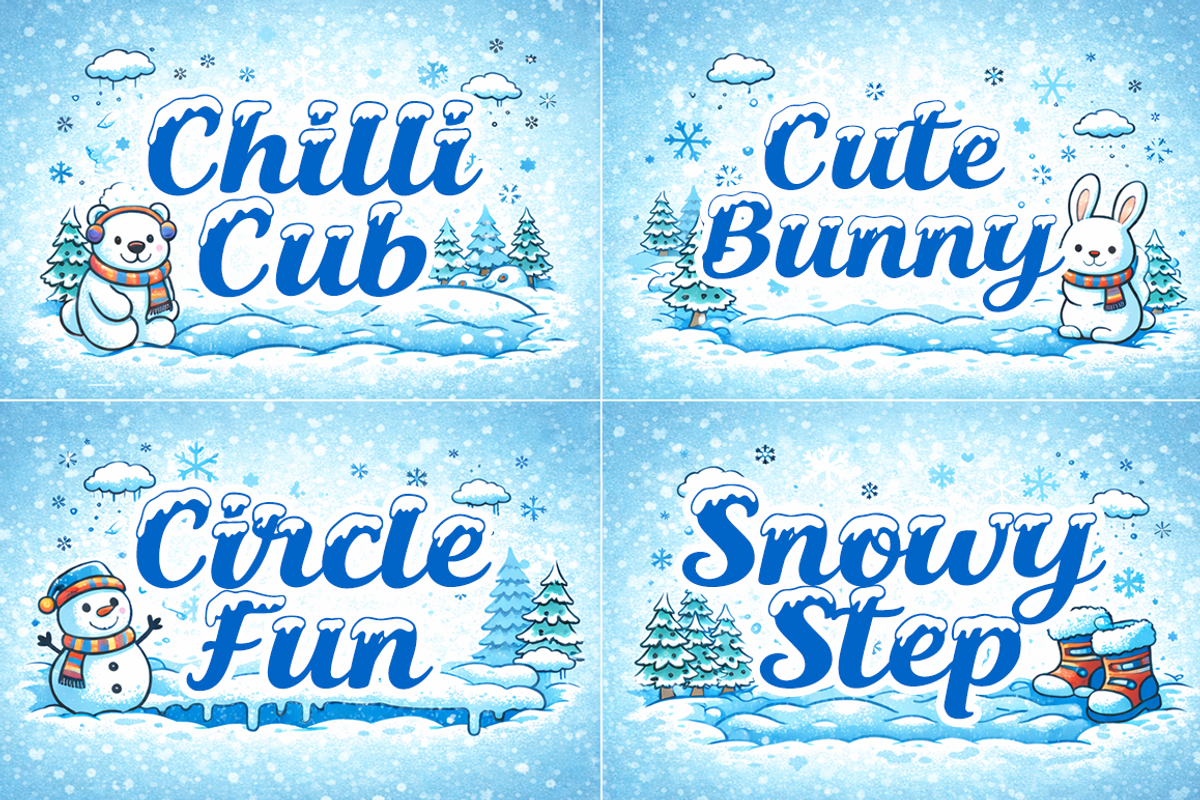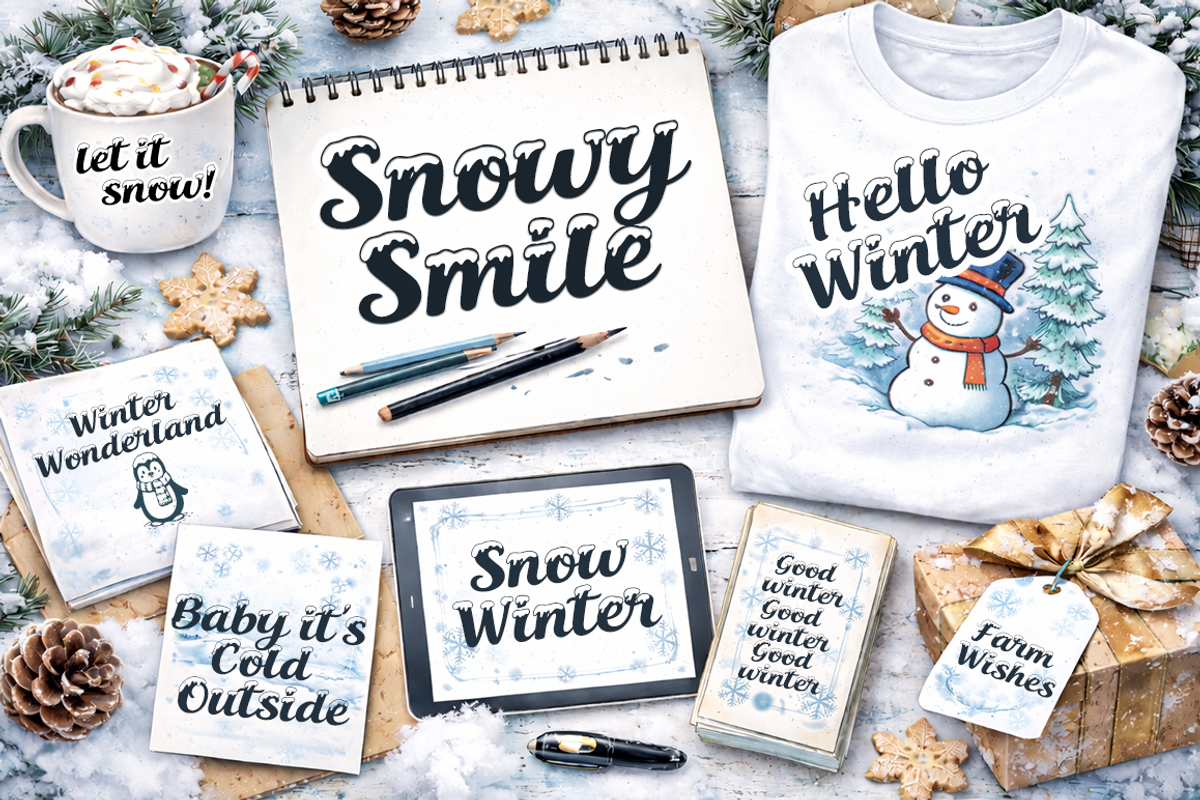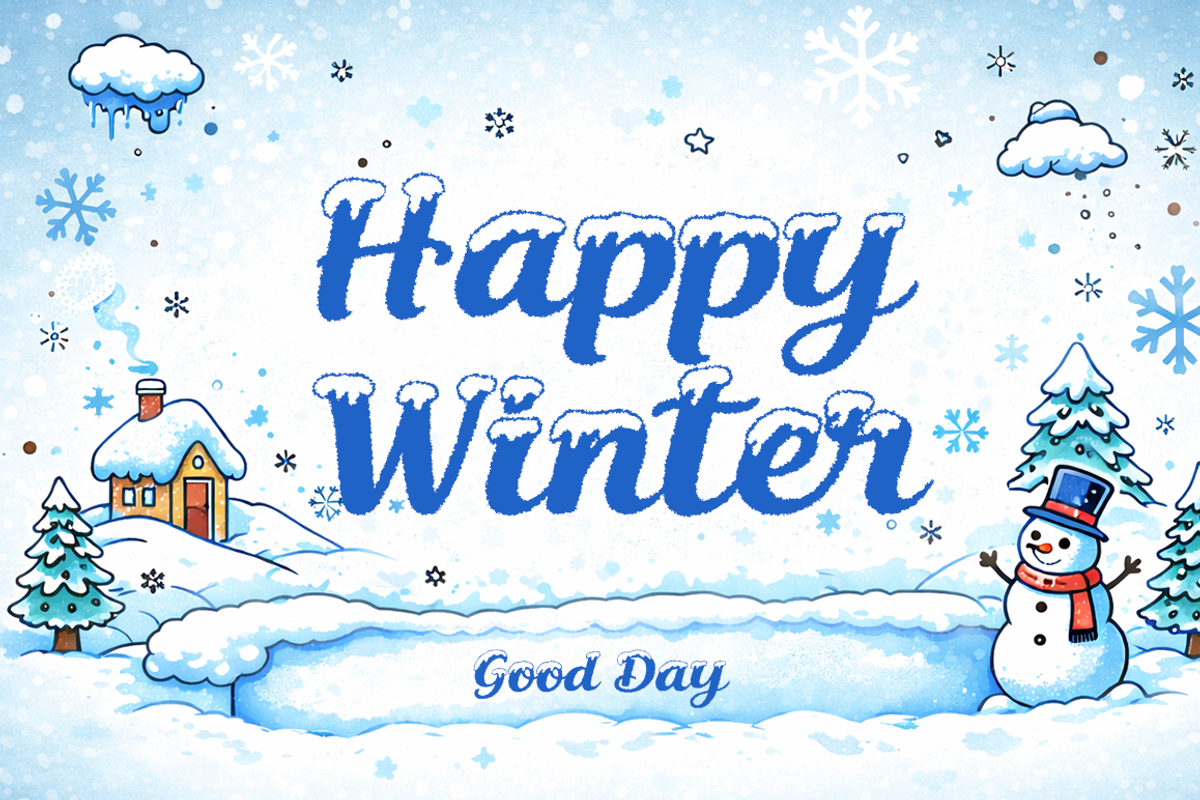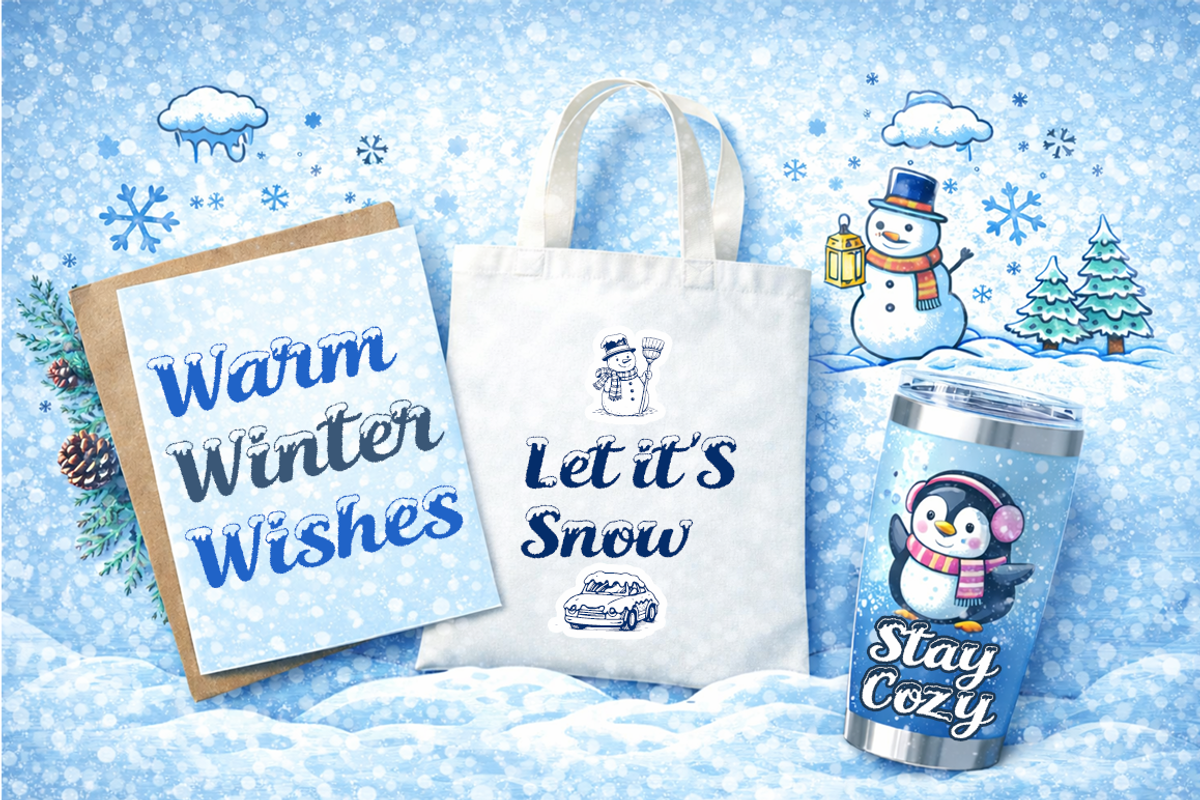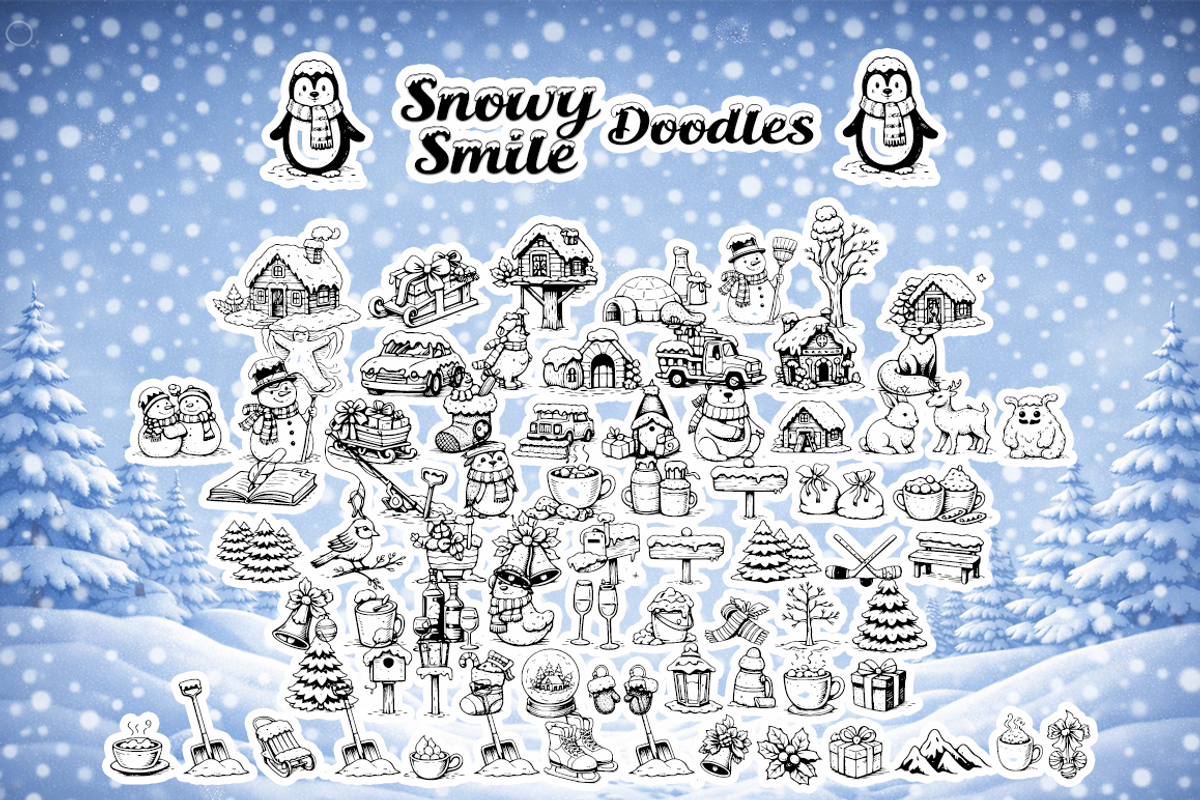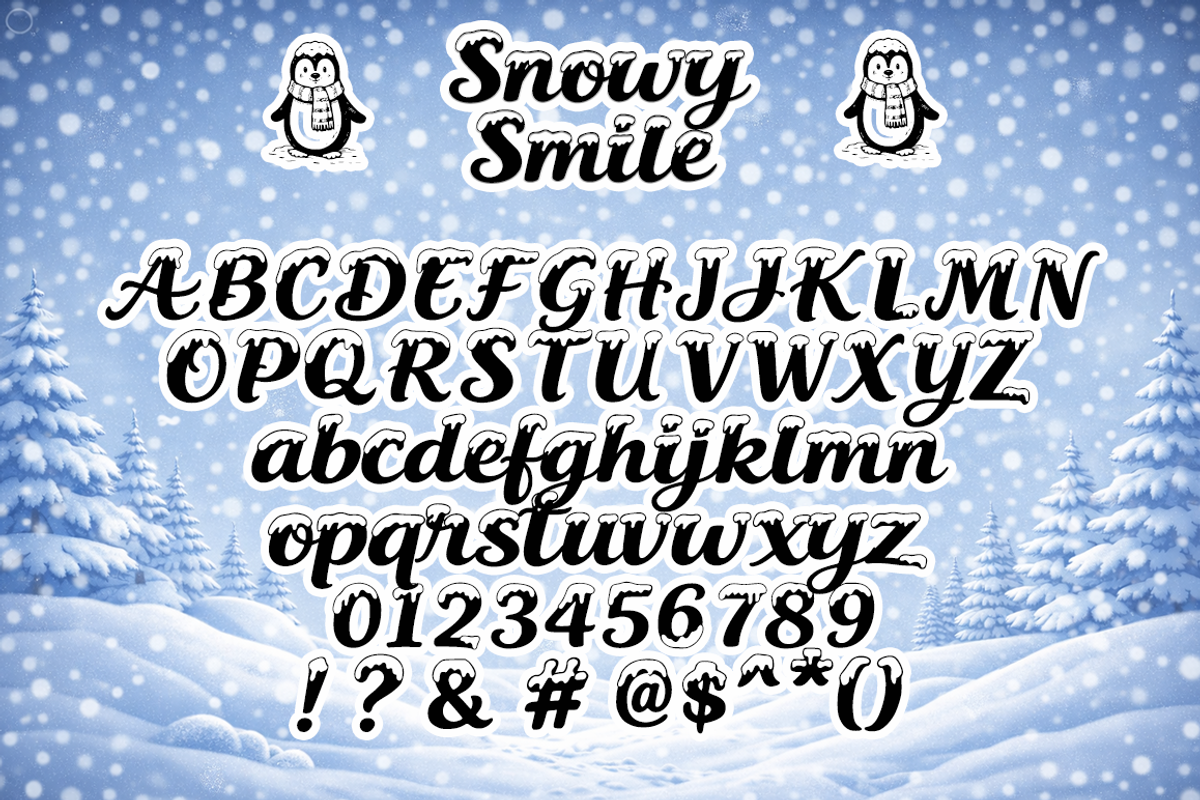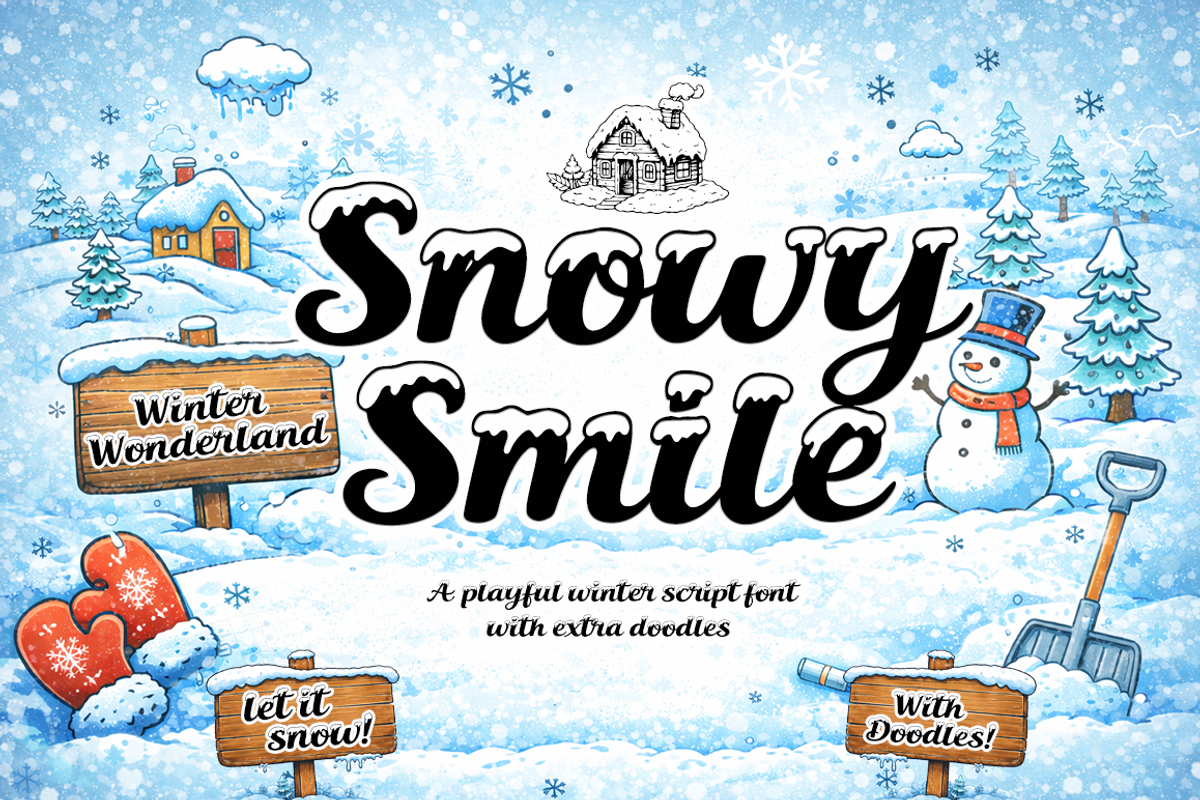
Snowy Smile – Playful Winter Script
Snowy Smile – Playful Winter Script Font with Extra Doodles
Snowy Smile is a playful winter script font inspired by snowy landscapes, cozy moments, and cheerful holiday vibes. The soft curves, rounded strokes, and decorative snow details create a warm and friendly visual style suitable for winter-themed designs.
This font delivers a fun and festive atmosphere while maintaining clarity and balance for both digital and printed projects.
✔ Playful winter script style ✔ Smooth and clean letterforms ✔ Balanced spacing and readability ✔ Extra winter-themed doodles ✔ Suitable for digital and print use